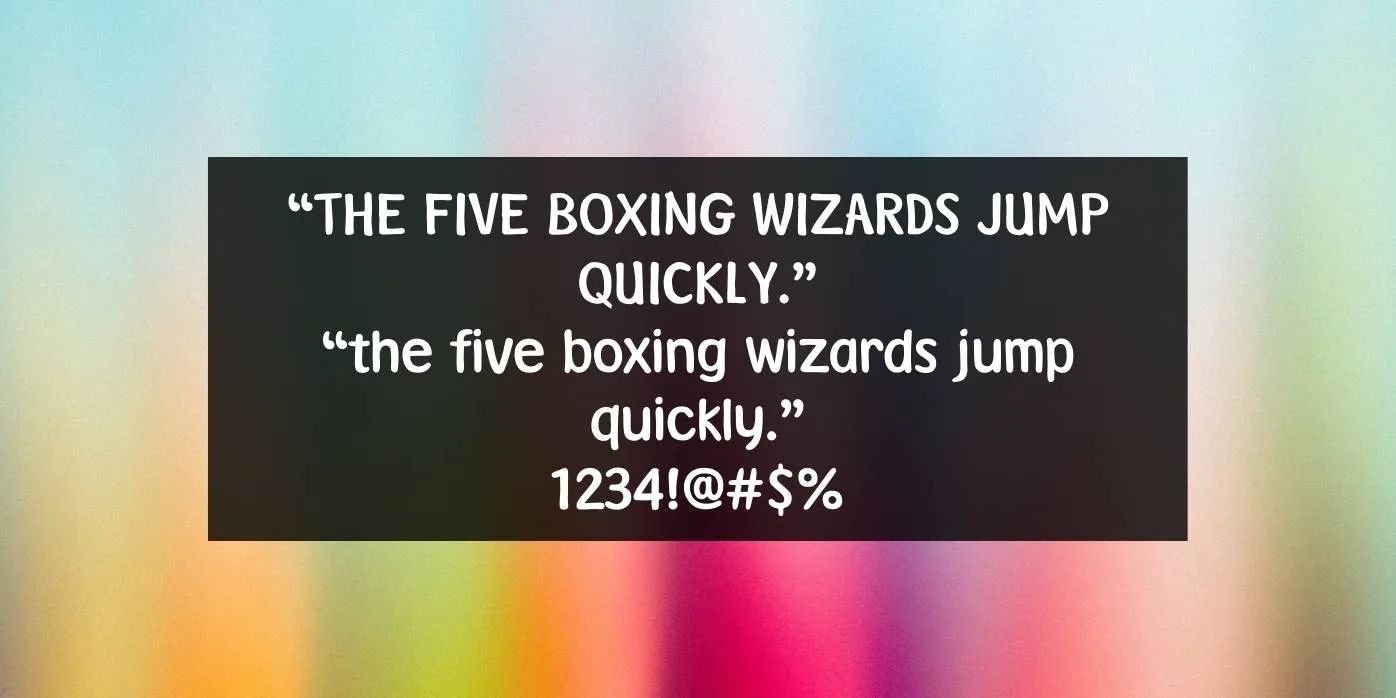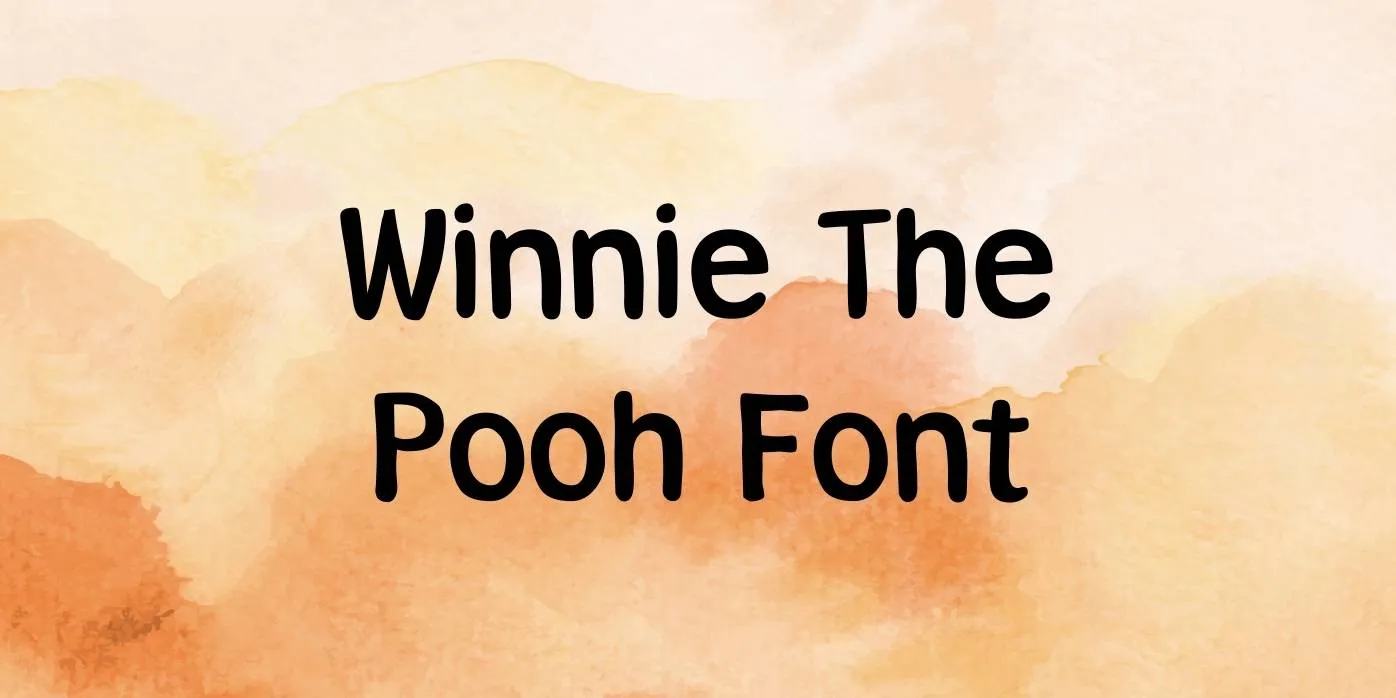
Winnie The Pooh Font
Here, we present a modern font known as Winnie the Pooh Font. This typeface is very popular and designed by Walt Disney Animation Studios. This typeface belongs to the cartoon’s font family. The most unique thing about this font is that it includes the characters from the Winnie the Pooh movies.
This font is perfect for making any design look more attractive. Winnie the Pooh Font has a very friendly appearance and it makes any text look more fun. It is available in two styles, Regular and Italic. Both styles have their own variations in weight, such as Light, Medium, Bold, etc.
It can also be used for body copy, but only in small amounts. This Font is best used for designs that are aimed at children or young adults.